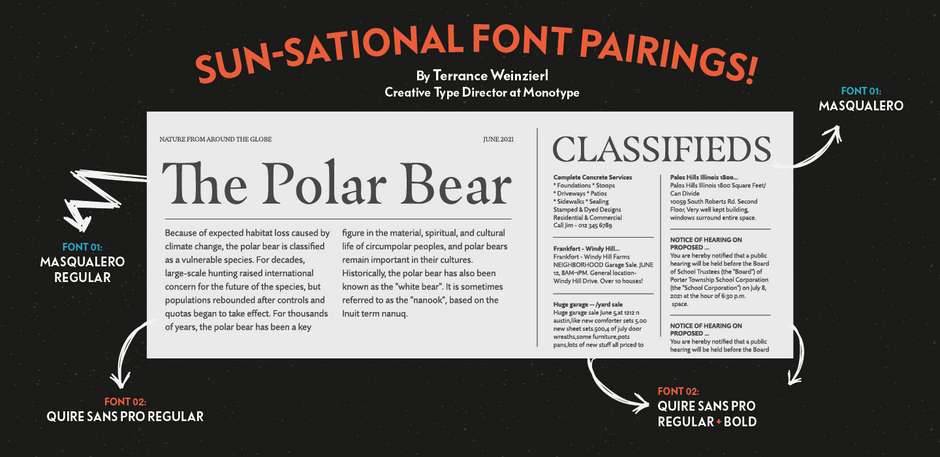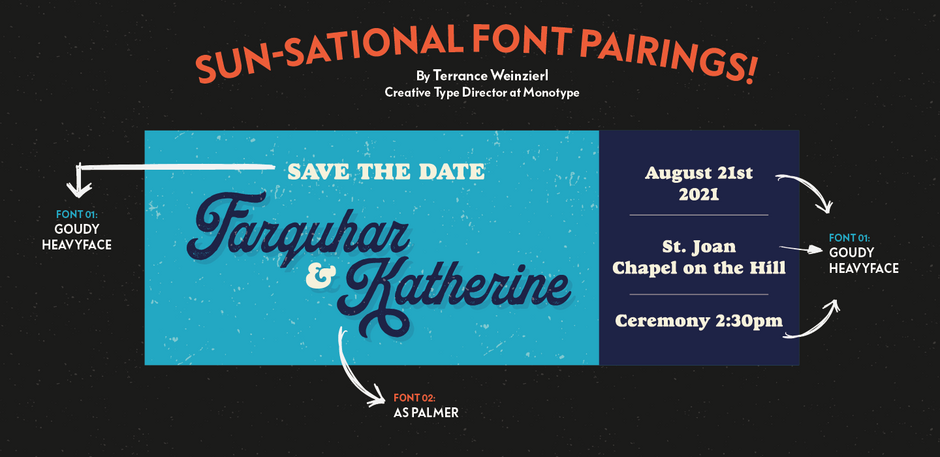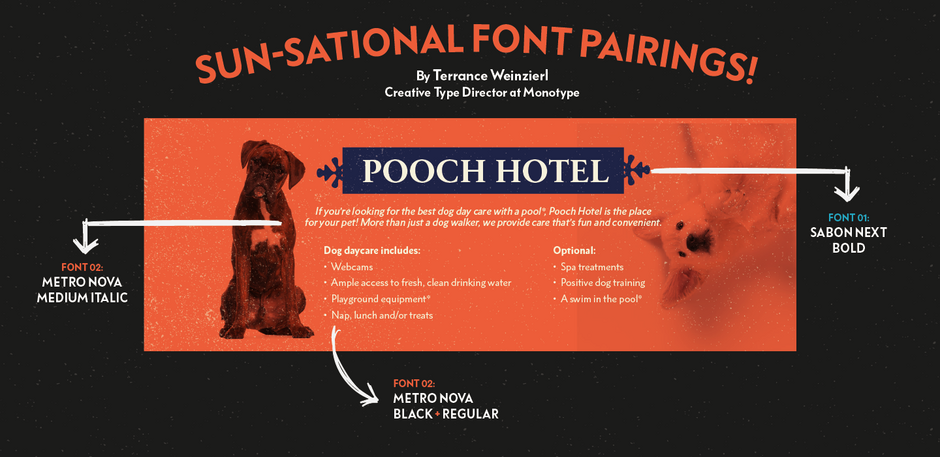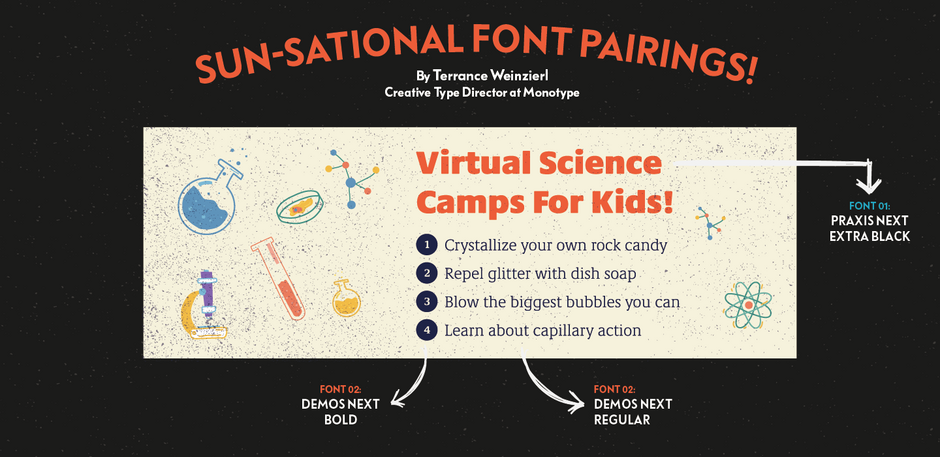
Dive in and discover font pairings that totally balance one another, specially picked by our fabulous foundries.
How do you know if fonts pair well with one another?
There are no real rules in the world of design, however, a great rule of thumb is to identify fonts that simply complement one another. Think fonts that show contrast but not conflict! Below you will find our foundries pairing examples to help guide you in the best way!
While Masqualero can be paired with many fonts, Terrance selected 3 options — Neue Kabel, Quire Sans or Libertad — for you to choose from. He chose these because a sans serif will help calm and frame Masqualero, while the jazzy details in these pairing options can keep up with the movement of Masqualero.
Sackers Gothic is the next fonts that Terrance shared some pairing option for, he suggested — Ionic No 5, Playland and Kalista. He chose these to amp up the stationery vibe of Sackers Gothic.
Terrance wanted to double down on vintage tones for Goudy Heavyface hence he selected Hope Sans and AS Palmer as pairing suggestions.
The 3rd font that Terrance looked at was Sabon Next. He picked Metro Nova, FF Bauer Grotesk and Utily Sans as pairing suggestions because of their humanist proportions for harmony with Sabon Next and low stroke contrast for contrast.
The 5th pairing suggestion by Terrance was for Praxis Next. According to him, Demos Next when paired with Praxis Next play’s off the ‘rigid but rounded’ look.